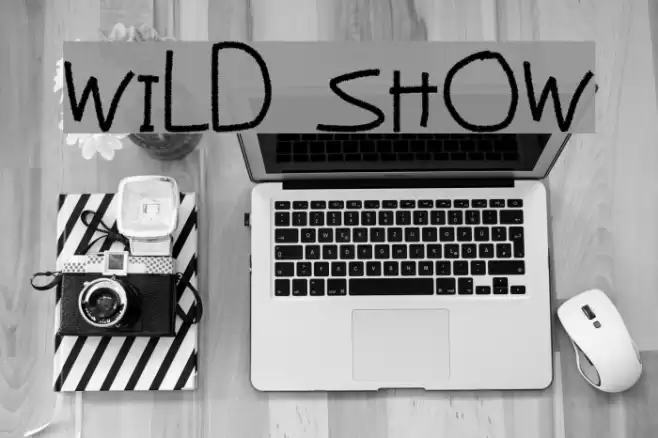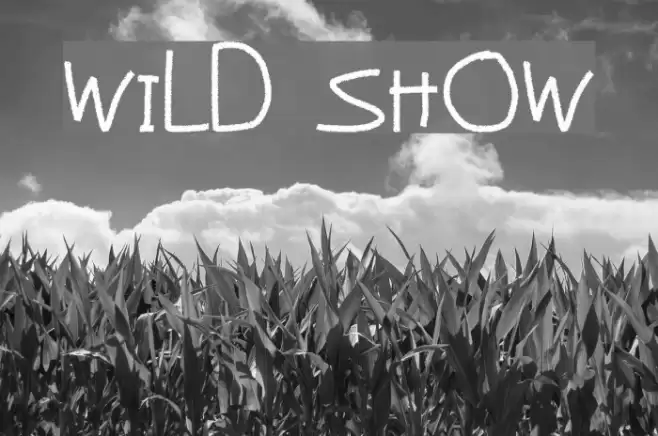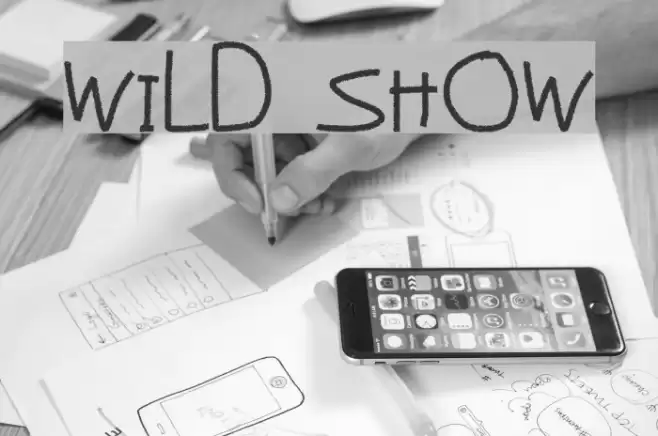
Wild Show Font
Wild Show Description
This font features a playful and casual handwritten style, characterized by its uneven strokes and slightly irregular letterforms. The letters have a natural, organic flow, giving the impression of being quickly sketched with a marker or pen. The uppercase and lowercase letters maintain a consistent style, with rounded edges and a slight tilt that adds to the informal aesthetic. The numbers and special characters follow the same design principles, ensuring a cohesive look across all glyphs. This font's charm lies in its simplicity and the personal touch it conveys, making it suitable for projects that require a friendly and approachable feel.
A playful, handwritten font with a casual and organic style from Handwritten fonts.
- Proposed Projects: Ideal for greeting cards, children's books, casual invitations, and personal branding.
- Overall Style: Casual
- Use Case: Headlines, Informal text, Personal projects